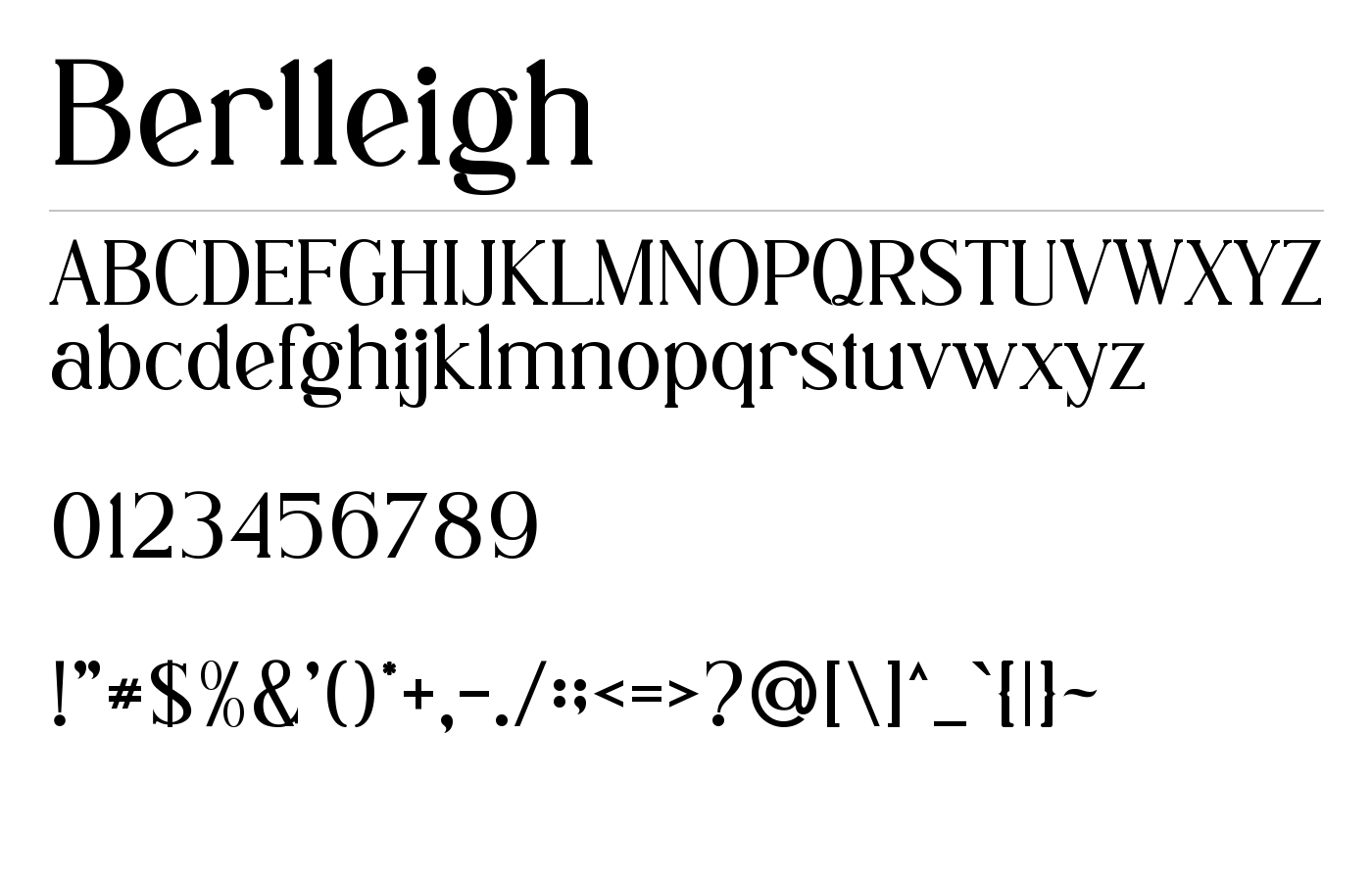
Berlleigh is a refined serif font characterized by its high contrast between thick and thin strokes and elegant, bracketed serifs that bring a classic yet sophisticated feel. Its tall x-height, well-balanced proportions, and distinctive letterforms with subtle curves make it ideal for luxury branding, editorial design, and upscale headlines where elegance and readability matter. This font shines in contexts that require a timeless, polished appearance, adding a touch of vintage charm without sacrificing modern clarity.
Berlleigh Font